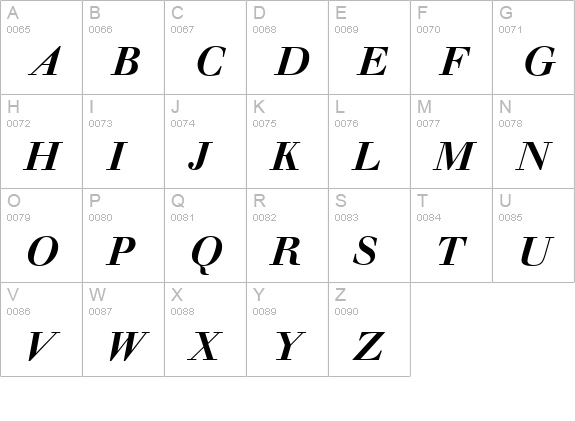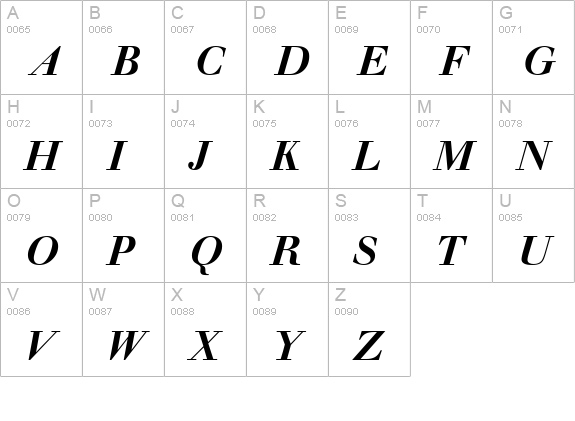
WalbaumDisplay-BoldItalic Font Details
WalbaumDisplay-BoldItalic font is a strikingly bold and elegant typeface that exudes sophistication and confidence. Its italicized form adds a touch of flair and modernity to any text or design project. The sharp, clean lines and balanced proportions of this font make it perfect for headlines, titles, and other attention-grabbing elements. The versatility of WalbaumDisplay-BoldItalic font allows it to be used across a wide range of applications, from branding and advertising to editorial design and packaging. Its bold presence on the page commands attention and makes a strong visual impact. Best of all, WalbaumDisplay-BoldItalic font is available for free download at FontsMarket.com. This means that you can easily access and use this high-quality typeface in your projects without any cost. Don't miss out on the opportunity to enhance your designs with the bold and stylish WalbaumDisplay-BoldItalic font today!